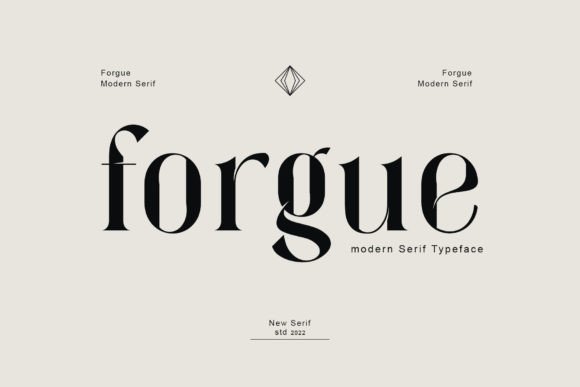
**Introducing Forgue: The Quintessential Serif Font for Captivating Designs**
Immerse yourself in the exquisite elegance of Forgue, a serif font meticulously crafted to ignite your creative vision. With its timeless beauty and unwavering style, Forgue empowers you to elevate your designs to captivating heights.
Every letter in this remarkable font family exudes a distinct charm, meticulously designed to evoke emotions and inspire imagination. Forgue's graceful curves and sharp angles dance together in perfect harmony, creating a visual masterpiece that will leave an unforgettable impression.
Whether you seek to craft eye-catching logos, establish a distinctive brand identity, or express your thoughts with eloquence, Forgue is your font of choice. Its versatility knows no bounds, lending its charm to a myriad of design endeavors.
Imagine your designs adorned with Forgue's alluring presence. Your logos will radiate a timeless sophistication, your branding will embody the essence of luxury, and your quotes will resonate with an undeniable impact.
Forgue is not merely a font; it is an invitation to unleash your creativity and captivate your audience. With every letter you type, you sow the seeds of an extraordinary design that will blossom into a masterpiece.
Embrace the timeless beauty of Forgue today and elevate your designs to new heights. Experience the transformative power of a font that will ignite your imagination and leave an enduring mark on the world.